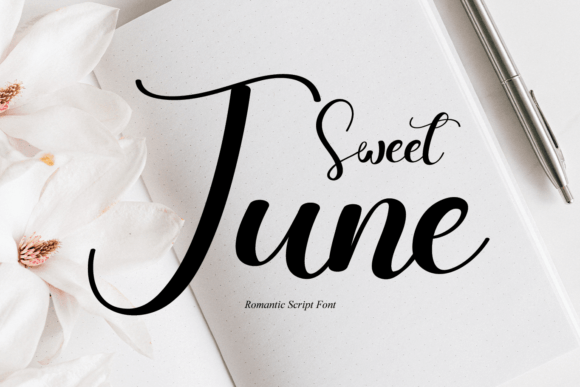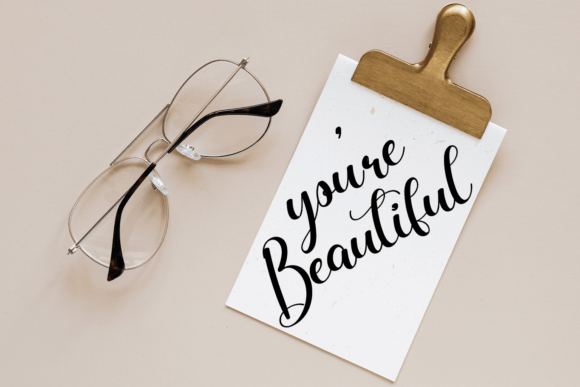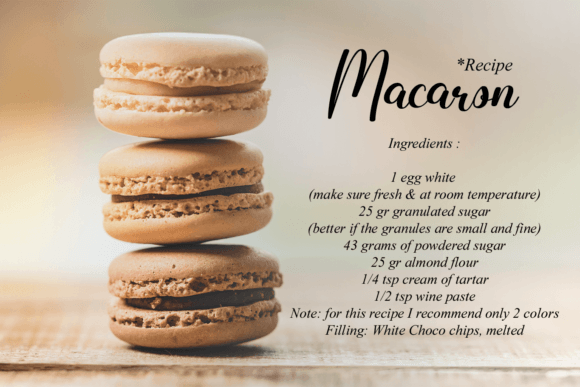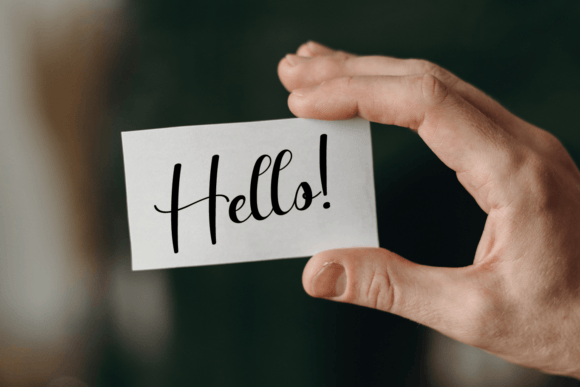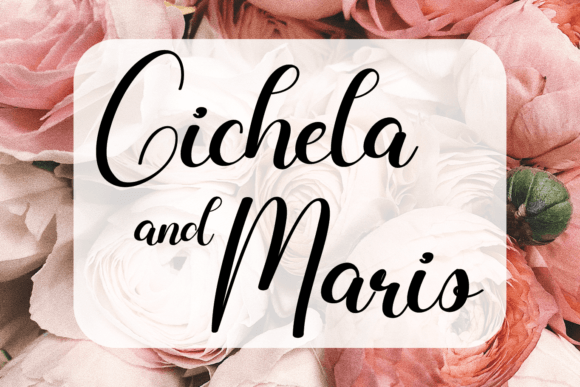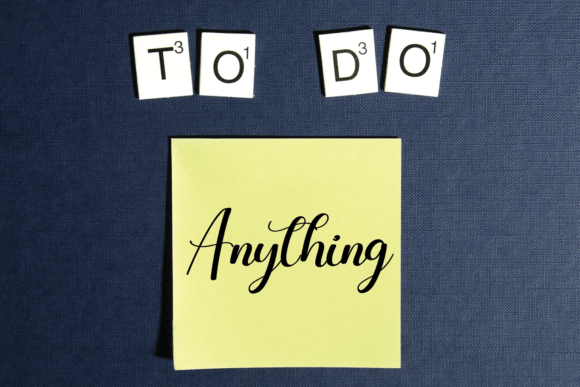
Sweet June Font
About Sweet June Font
Sweet June is a flowing and graceful script font that captivates with its ravishing style. Designed to inspire admiration, this font is a perfect choice for creating gorgeous wedding invitations, beautiful stationary art, eye-catching social media posts, and a variety of other stunning designs.
The flowing script of Sweet June adds a touch of elegance and charm to your projects. Its graceful strokes and fluid design contribute to a visually pleasing aesthetic, making it an ideal font for occasions where a sense of beauty and sophistication is desired.
Beyond its functional aspect, Sweet June is a design asset that infuses a sense of romance and allure into your creations. Whether used in wedding materials or social media posts, this font elevates the overall visual appeal with its captivating and flowing style.
In summary, Sweet June is more than just a font; it’s a creative tool designed to bring a touch of grace and beauty to your designs. Fall for its ravishing style and choose Sweet June to add an element of elegance to your wedding invitations, stationary art, social media posts, and various other creative endeavors.